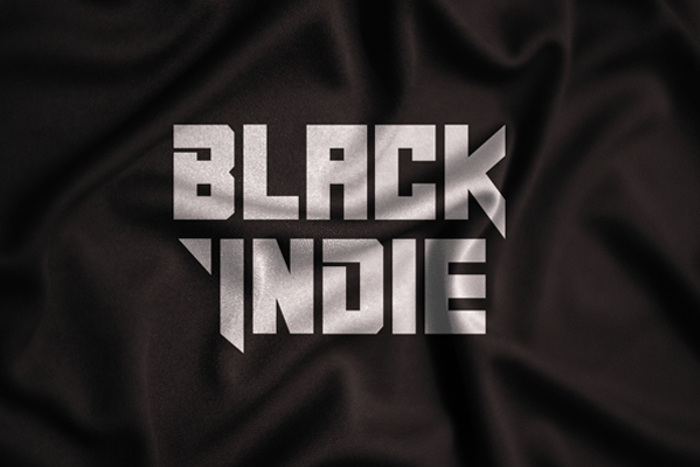
Black Indie Font
Product Description :
Black Indie is a bold and authentic sans serif font. The font is suitable for any branding project like logo, t-shirt printing and many more. outstanding in a wide range of contexts. See the previews above to get some inspiration on how you can use them.